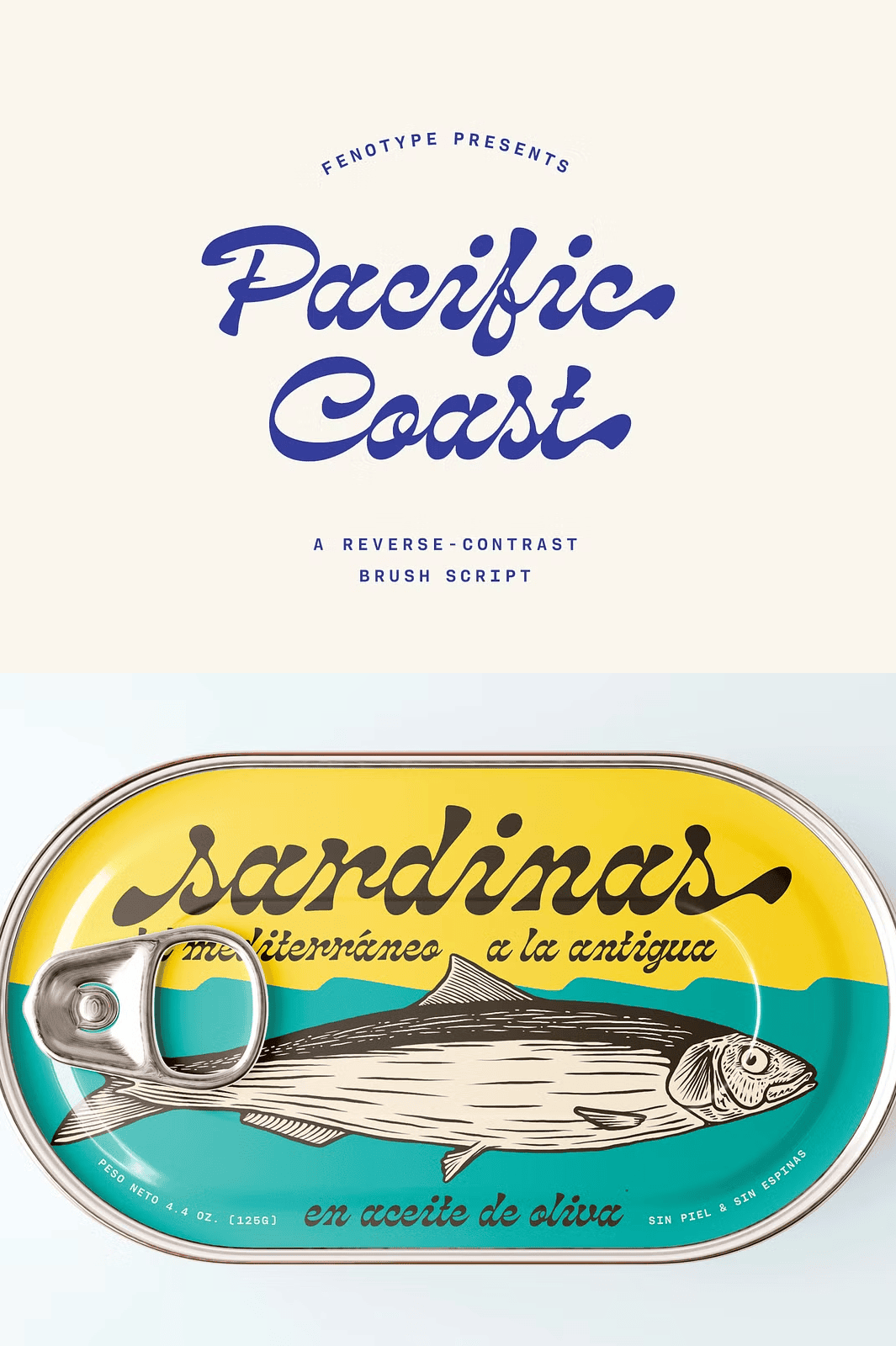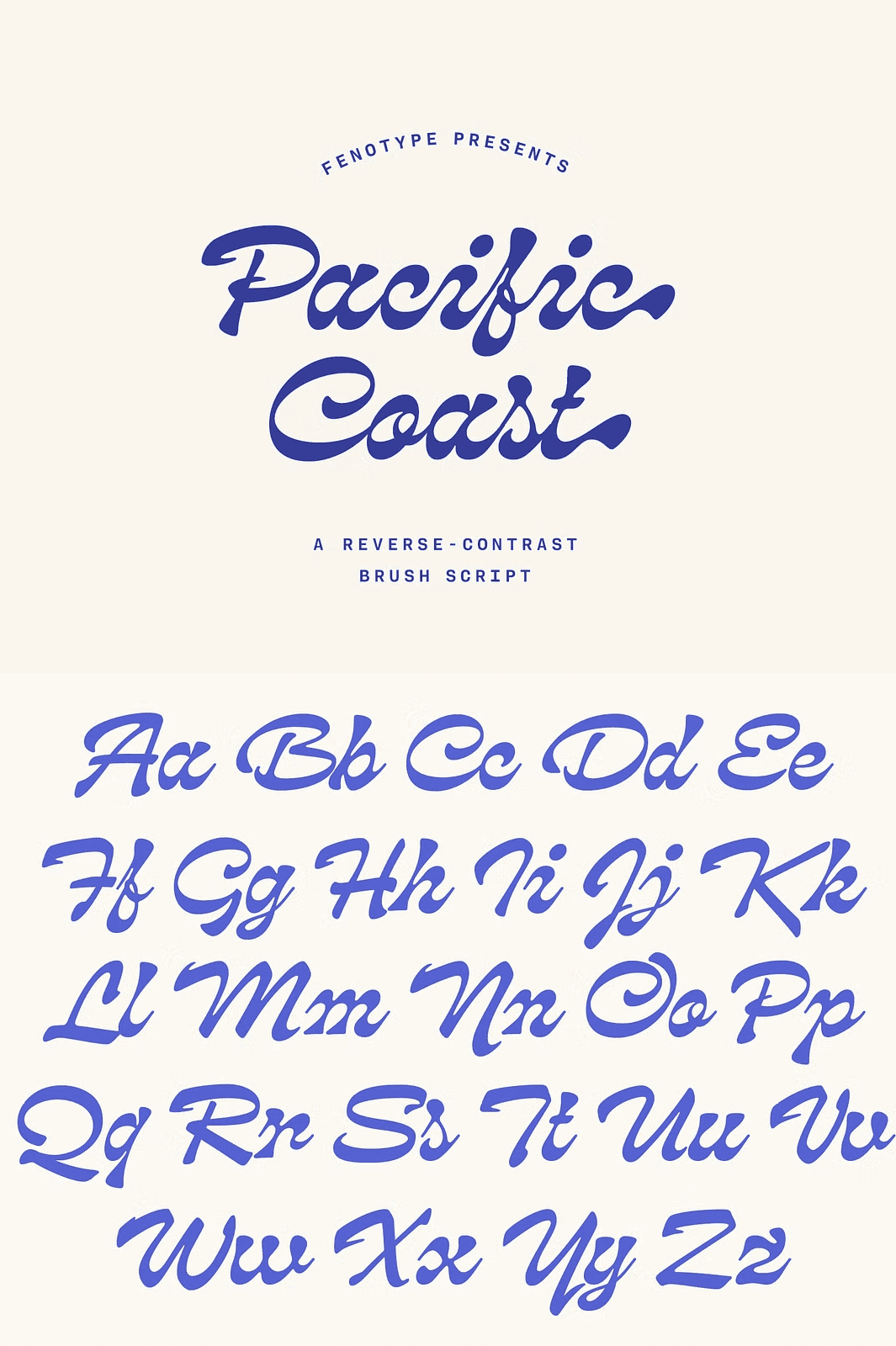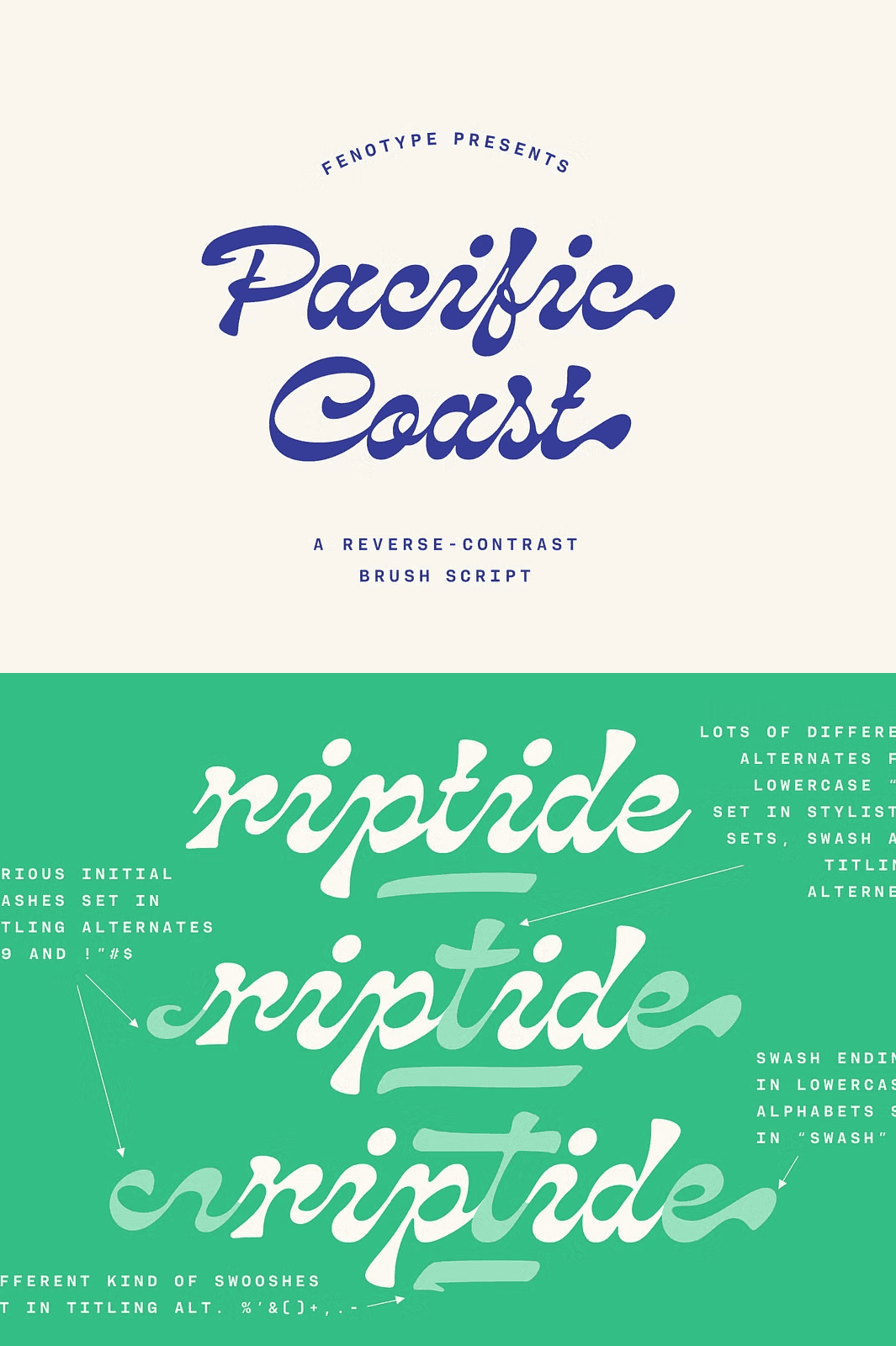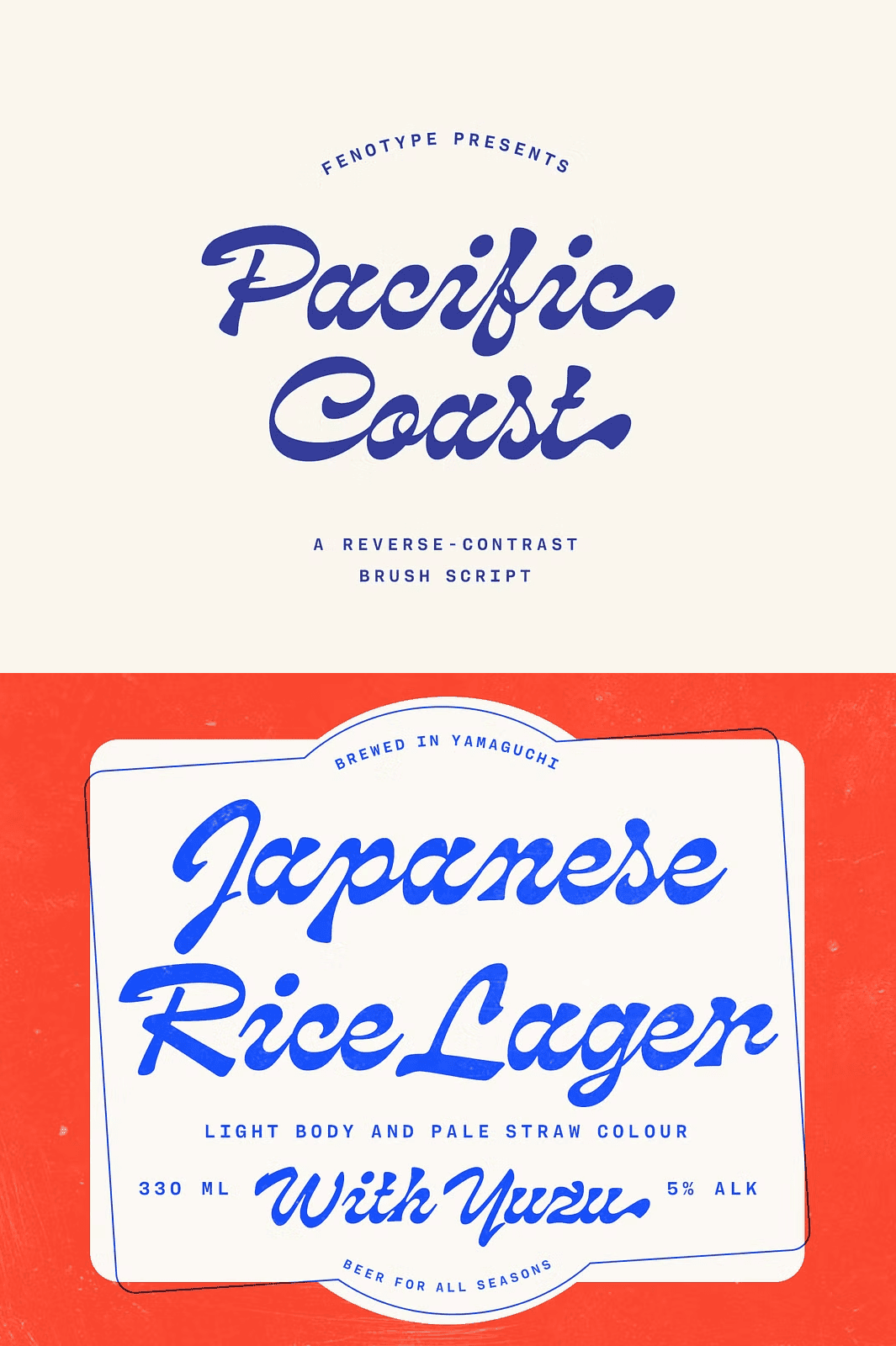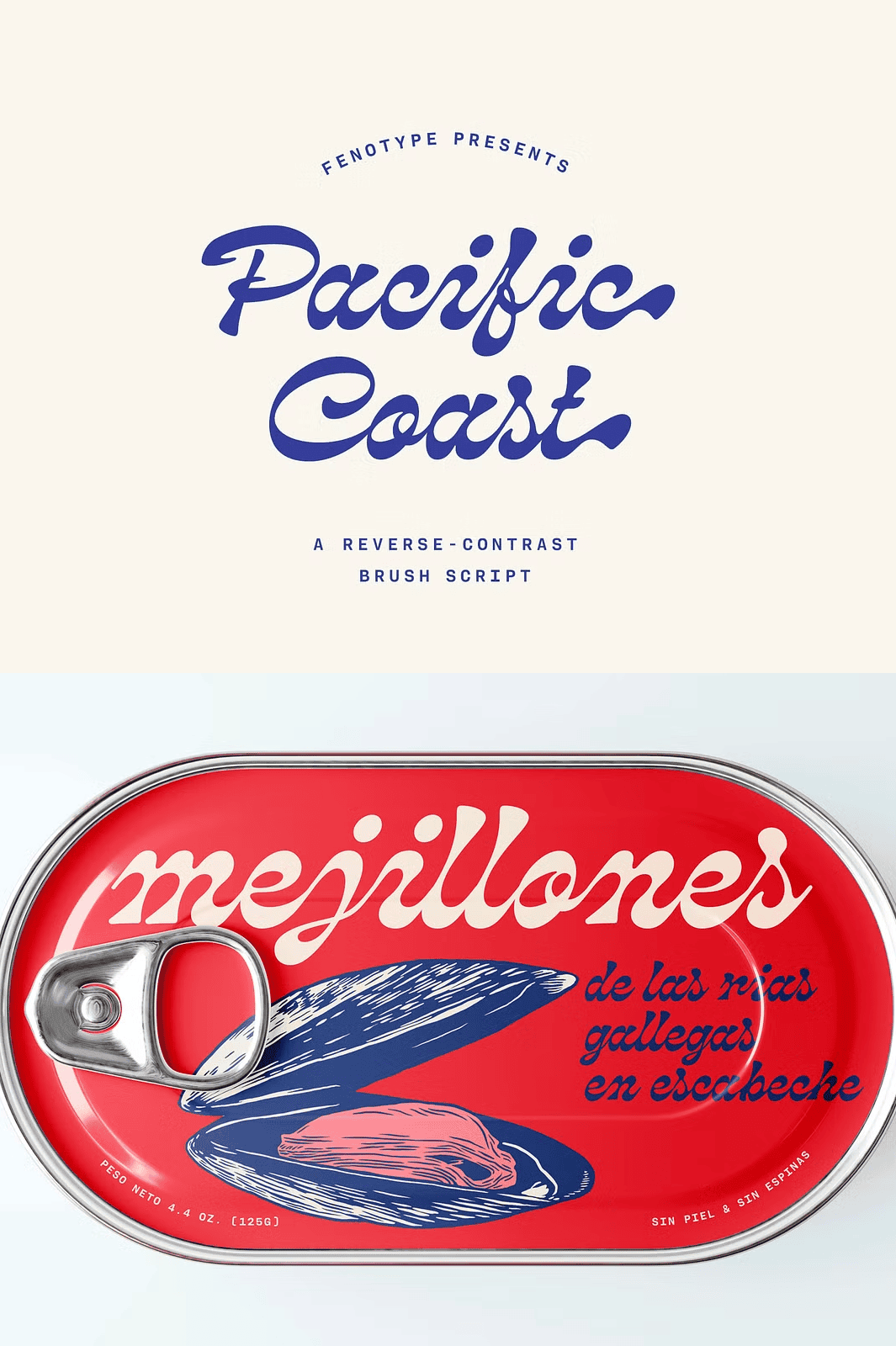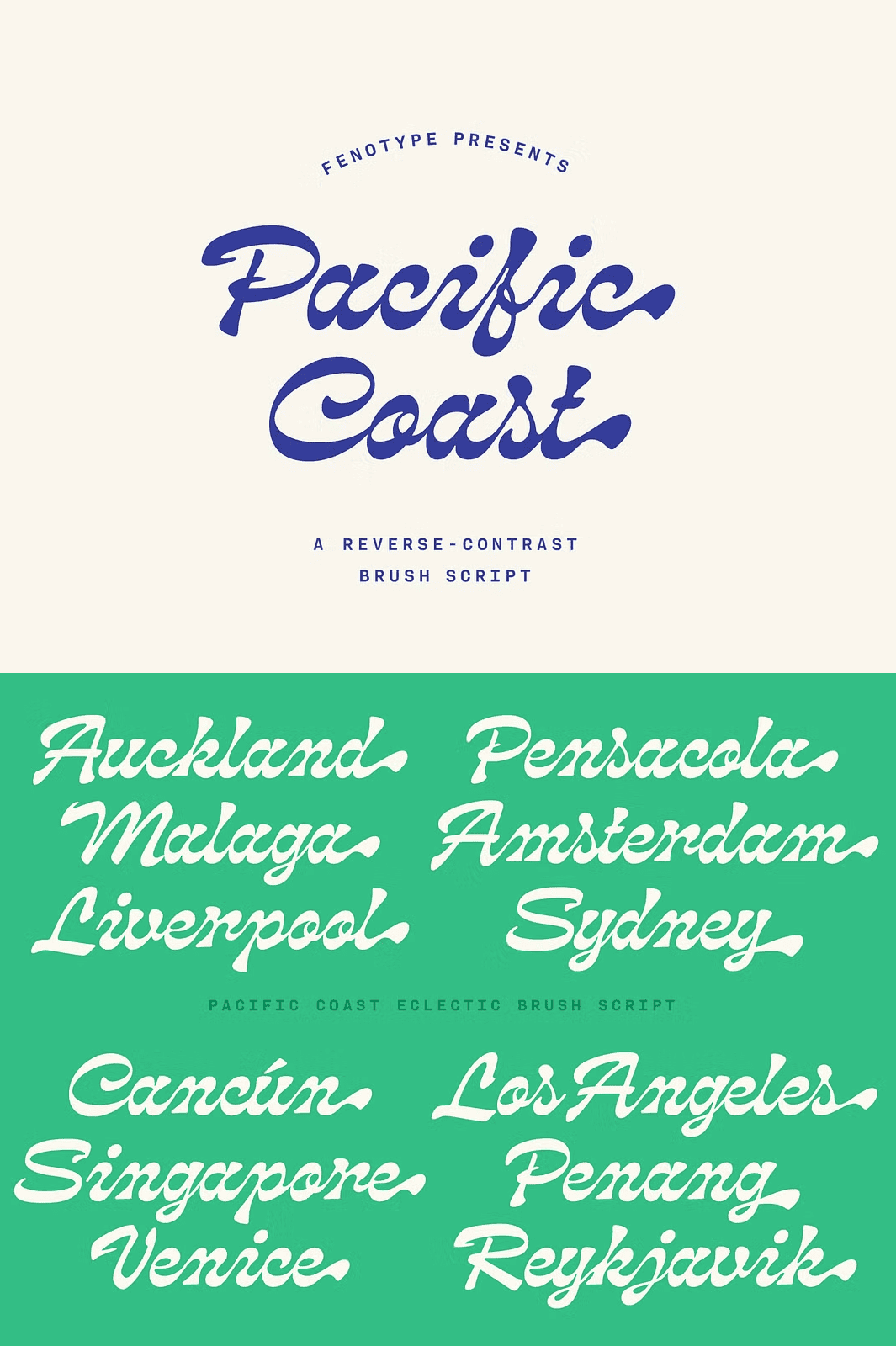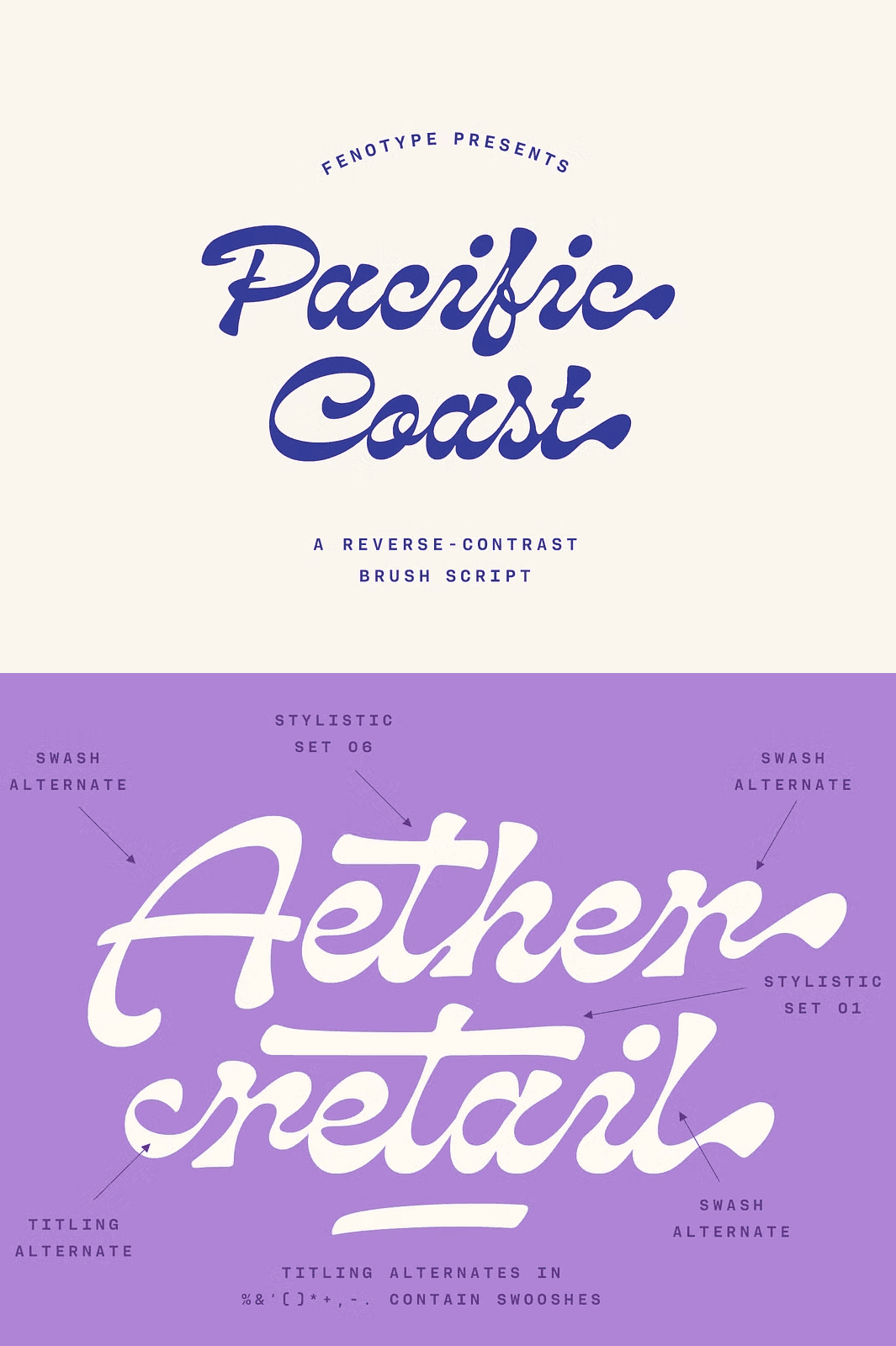
Pacific Coast Retro Script Font
Channel the Warmth of the Pacific with Every Stroke
Feel the rhythm of the tide and the whisper of ocean breezes as you type with **Pacific Coast**, a bold, reverse-contrast brush script that radiates a mellow, sun-kissed summer aesthetic. Designed for creatives who want to convey relaxed sophistication, this font captures the effortless energy of beachside artistry and vintage poster design. Whether you’re illustrating a resort brochure, branding a lifestyle product, or crafting a music festival poster, Pacific Coast commands attention with its organic flow and refined character.
Its expressive lines and subtle contrast bring a tactile, handcrafted quality to digital work, making your designs feel alive, vibrant, and deeply personal.
Explore an Abundance of OpenType Features for Dynamic Typographic Expression
Pacific Coast isn’t just a font — it’s a fully featured typographic toolkit. Unlock exceptional versatility with advanced **OpenType features** that transform standard text into visually rich compositions:
– **Contextual Alternates**: Automatically activate for smooth, natural connections between letters — no manual tweaking required.
– **Swash Terminals**: Every lowercase character features elegant swash ends for a flowing, artistic finish.
– **Stylistic Alternates**: Choose from multiple versions of letters to avoid repetition and enhance visual rhythm.
– **Titling Alternates**: Access unique uppercase forms, stylized ampersands, and ornamental punctuation for bold headlines and display text.
– **Initial Ornament Shapes**: Combine decorative flourishes with lowercase *i*, *j*, *m*, *n*, *p*, *r*, *s*, *x*, and *z* to add artistic flair to your text.
– **Ornamental Swooshes**: Stylistic elements for symbols like %, &, “”, ( ), *, +, , , ., and — — perfect for packaging labels and poster design.
– **Multiple Stylistic Sets (1–9)**: A wide selection of lowercase *t* variations, each uniquely crafted for creative expression.
These features allow you to tailor your typography with pinpoint precision, ensuring every project feels intentional and polished.
Transform Your Designs with Stylistic Flexibility
Don’t just type — **design** with Pacific Coast. Use its rich feature set to create distinctive text layouts that stand out in crowded visual spaces. Whether you’re designing:
– High-end product packaging with a retro coastal theme
– Festival or event posters that evoke summer freedom
– Brand identities for surfwear, coffee roasters, or travel brands
– Instagram graphics, social media banners, or web headers
– Editorial layouts and magazine spreads
…Pacific Coast gives your work **instant brand personality** and a sophisticated edge.
Designed with summer vibes, coastal inspiration, and creative freedom in mind. Let Pacific Coast carry your message where the waves meet the shore.